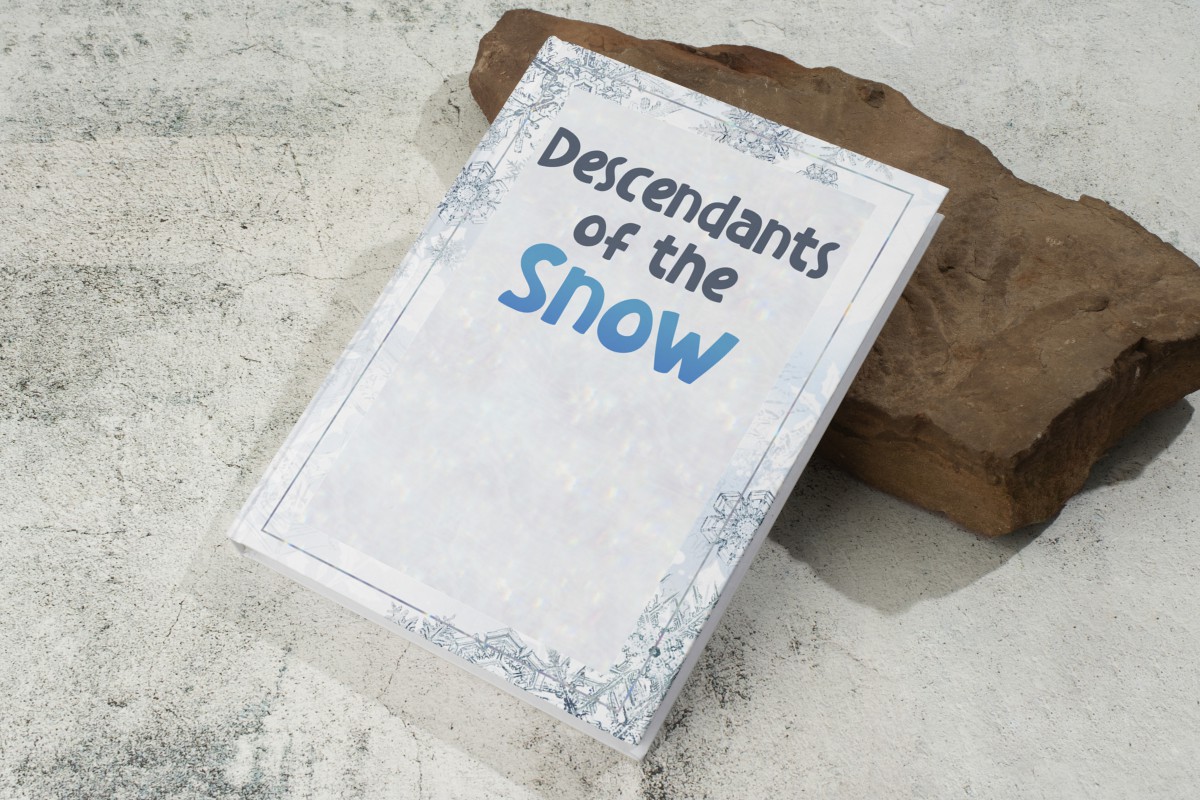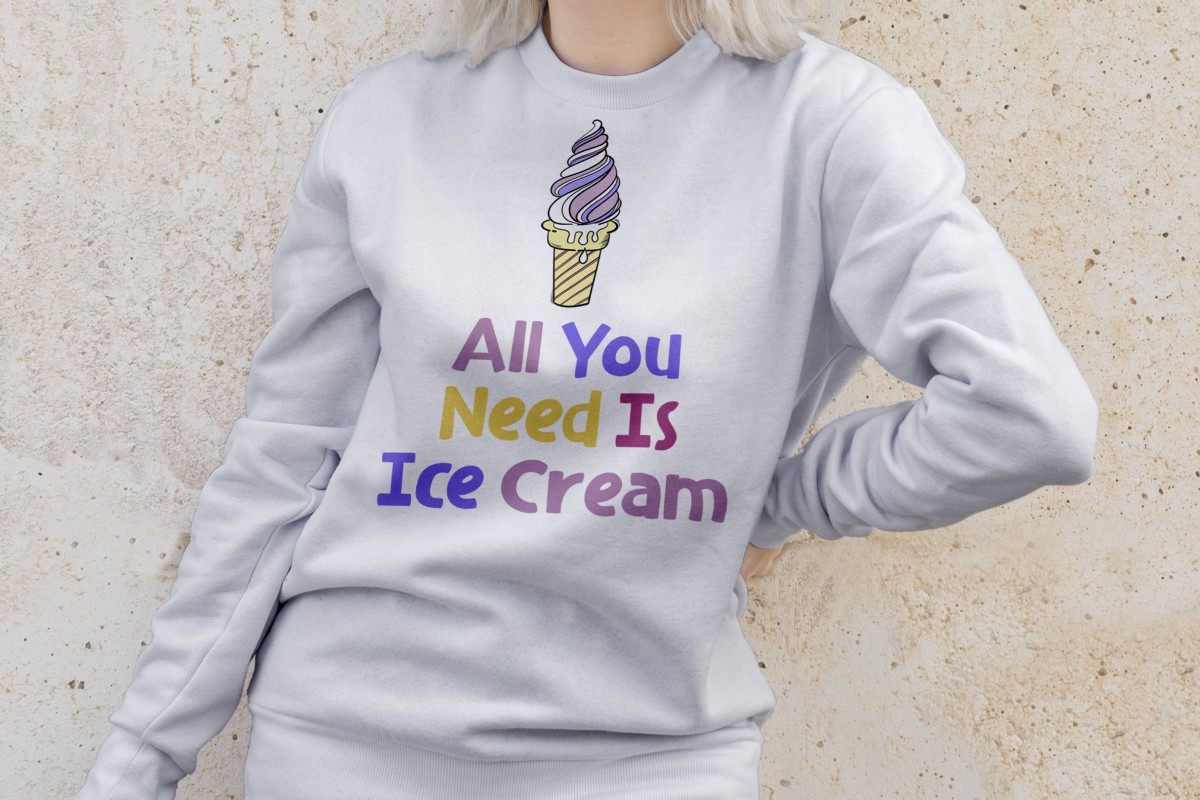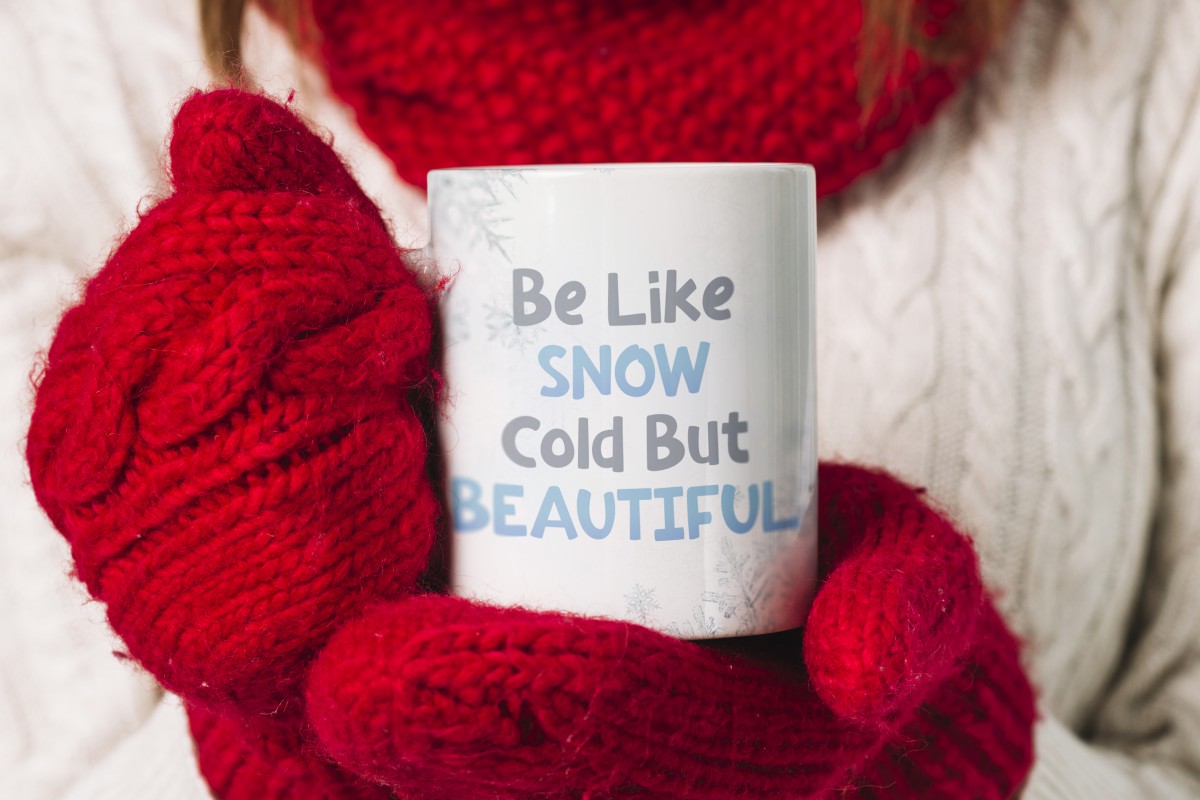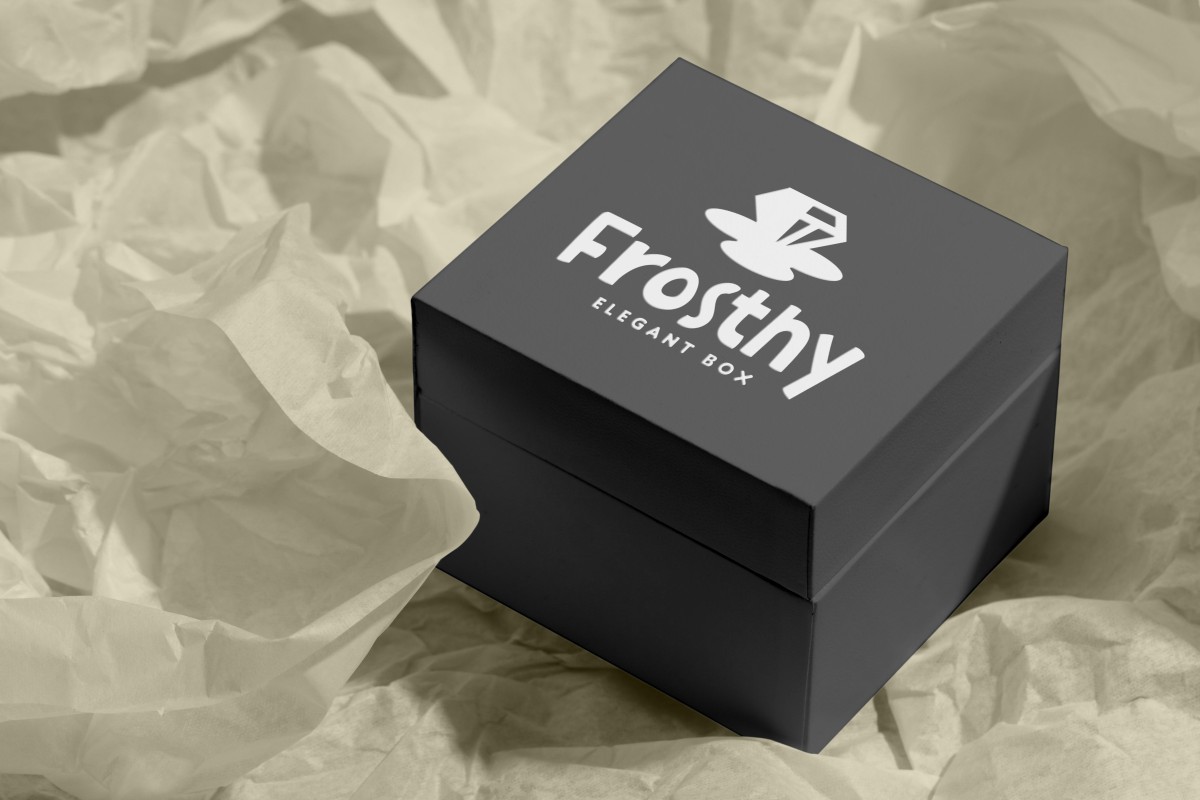
Ice Maker Font
Ice Maker Display Font
This is a cute comic display font, created by VinType Studio. It will add a fun touch and give lots of creative ideas to your designs and still be easy to read. This font will be suitable for many industries such as printing, publishing, custom design, screen printing design, fashion, kids stuff, cartoon, comic, school things, food and beverage, café, and more!